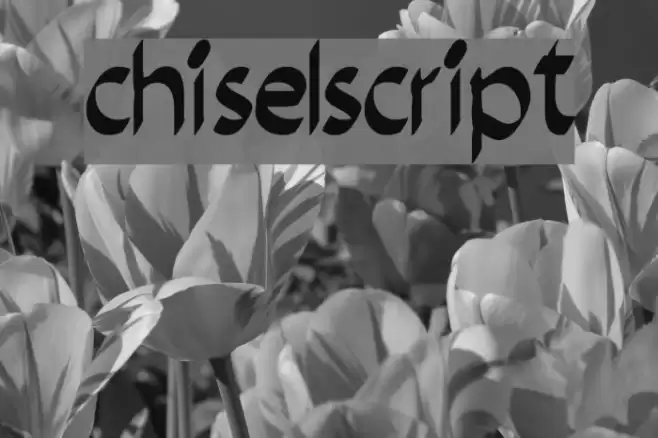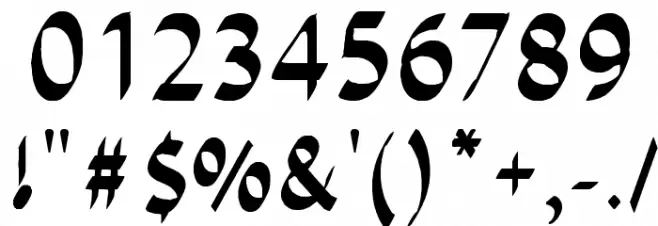
chiselscript Font
chiselscript Description
This font features a dynamic and angular design, characterized by sharp edges and a chiseled appearance. The uppercase letters are bold and striking, with a unique flair that suggests movement and energy. The lowercase letters maintain the same angular style, providing a cohesive look across all characters. Numbers and special characters are designed with the same attention to detail, ensuring consistency throughout. The font's distinct style makes it stand out, offering a modern yet artistic feel that can be both eye-catching and functional.
A dynamic, angular font with a chiseled, modern appearance from Uncategorized fonts.
- Proposed Projects: Ideal for branding, posters, headlines, and any project requiring a bold, artistic touch.